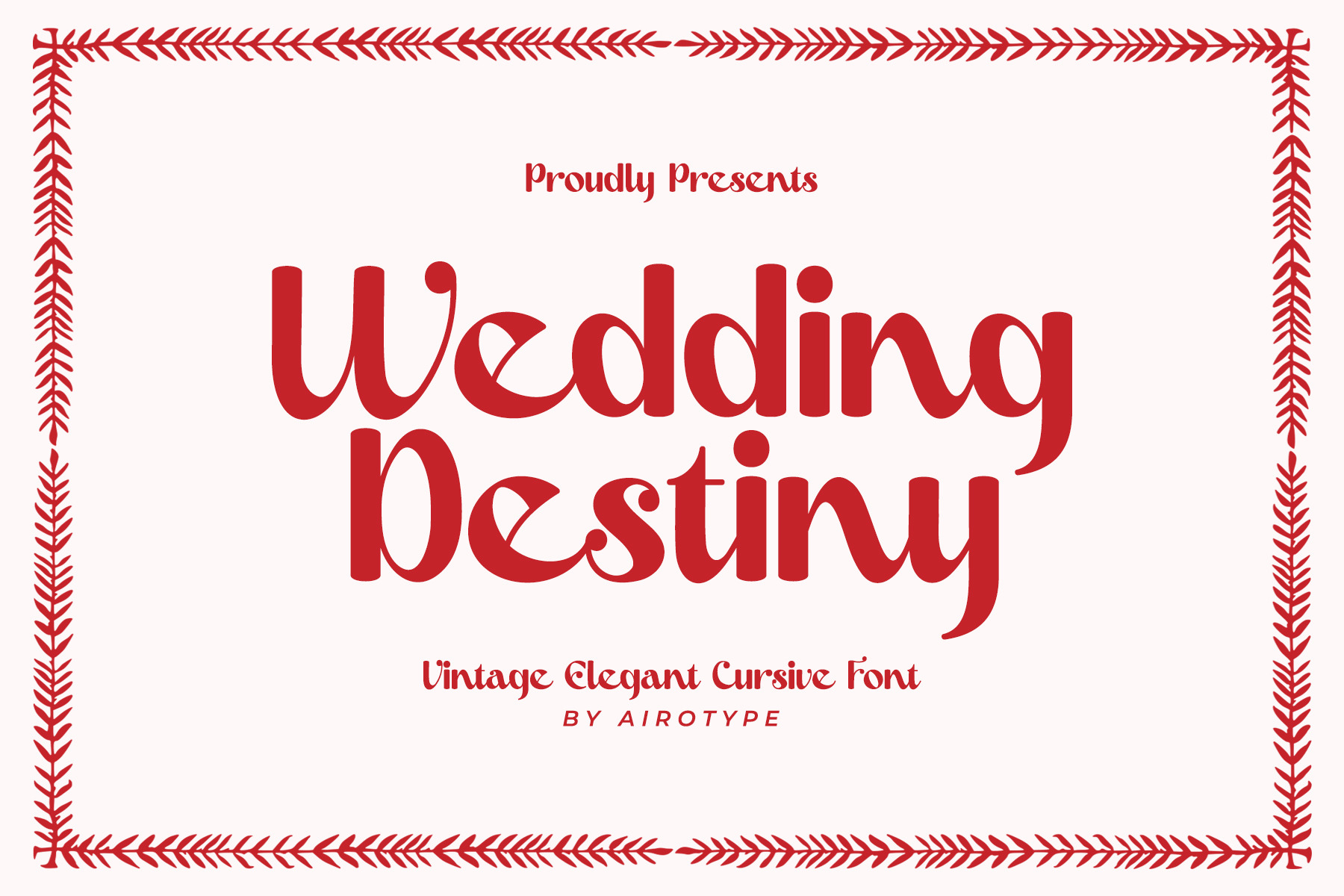
Wedding Destiny - Pretty Font
Wedding Destiny is cursive font with elegant vintage vibes. This font emits luxury, beauty, and pretty classic.
This font is beautiful for design that needs simple and elegant touch, such as wedding design, invitation, logo, poster, t-shirt design, crafting, sticker, sublimation, and many more.